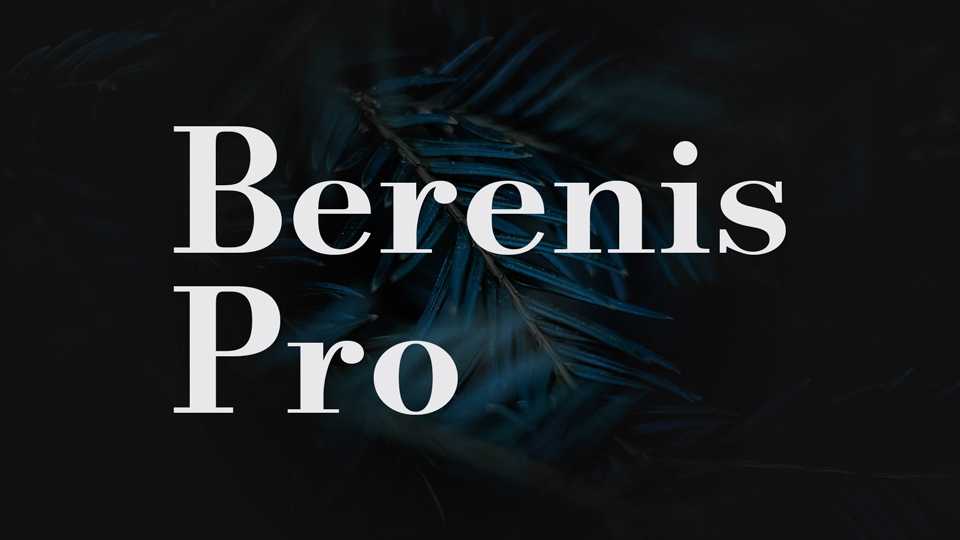
Download Berenis Pro typeface, a serif font family in two weights and Italics that has all the elegance and charm of a Didone. Berenis Pro can easily replace Bodoni or Didot in all types of publication and more particularly for refined presentations.
Designer: Arkandis Digital Foundry